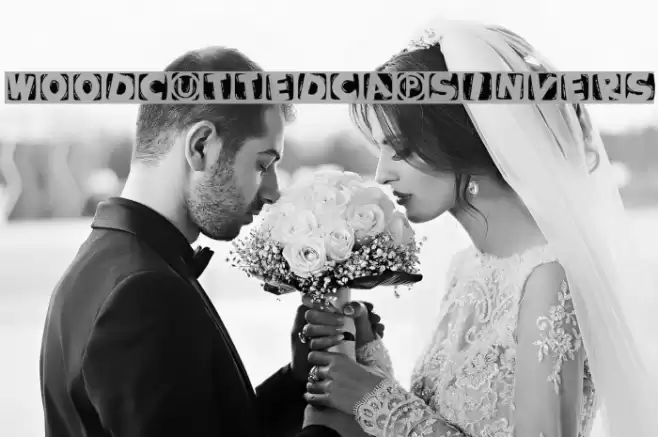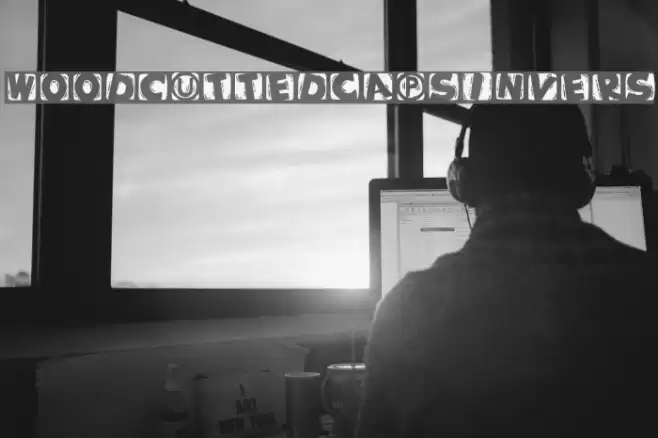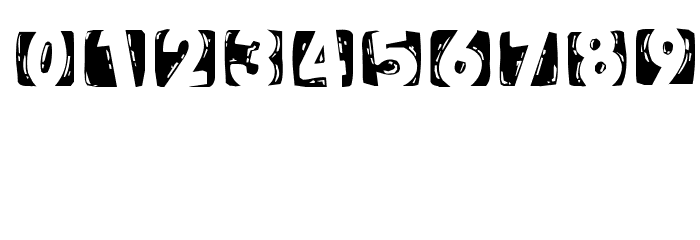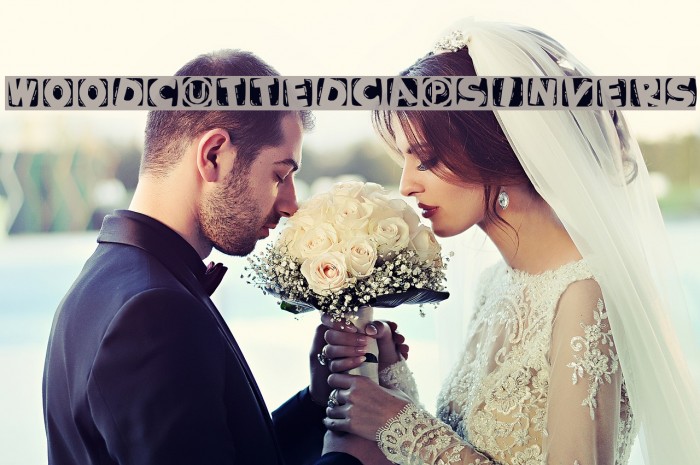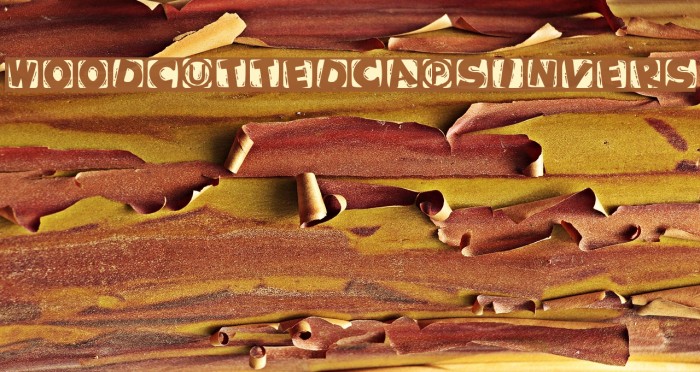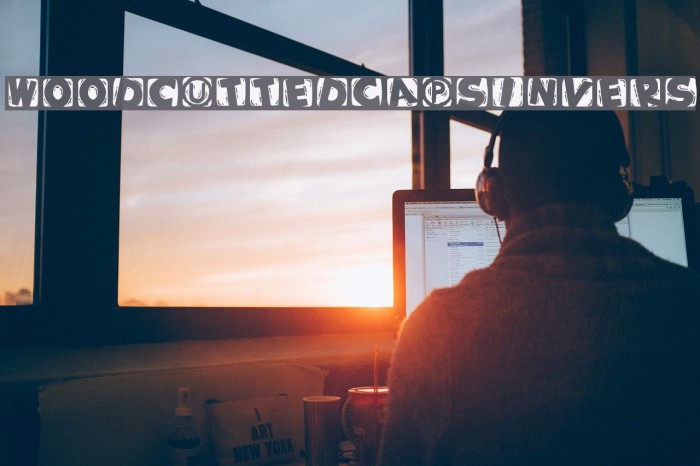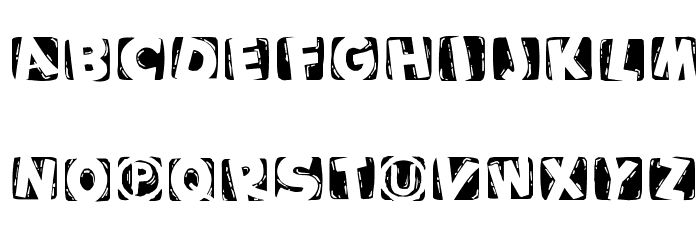
WoodcuttedCapsInvers Font
WoodcuttedCapsInvers Description
This font features a bold and rugged design, reminiscent of woodcut prints. Each character is uniquely distressed, giving it a handcrafted and organic feel. The uppercase and lowercase letters maintain a consistent style, with irregular edges and a slightly chaotic appearance. The numbers and special characters follow the same aesthetic, ensuring a cohesive look across all text. This font's distinctive style makes it ideal for projects that require a rustic or vintage touch, such as posters, logos, or packaging designs. Its boldness ensures readability while the artistic imperfections add character and uniqueness.
A bold, distressed font with a woodcut print style, perfect for rustic or vintage designs from Decorative fonts.
- Proposed Projects: Ideal for posters, logos, packaging designs, and any project needing a rustic or vintage aesthetic.
- Overall Style: Vintage